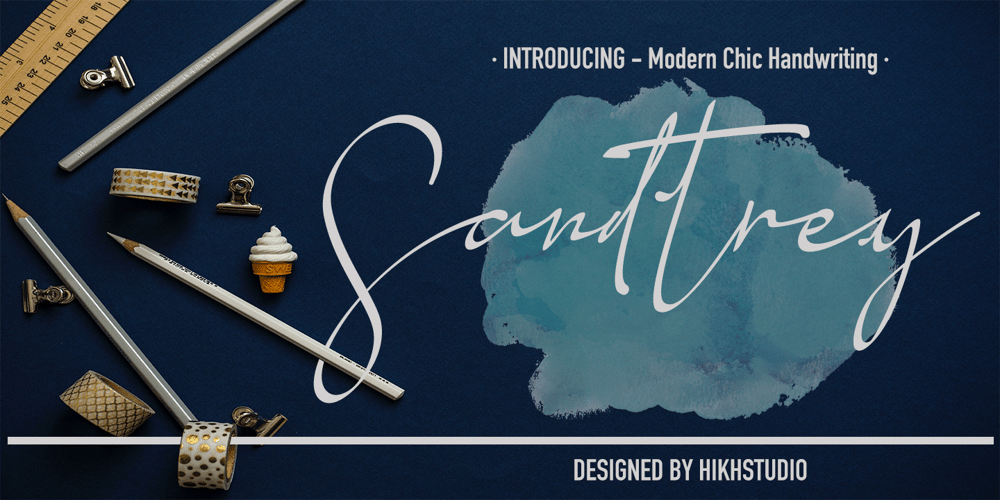
Sandtrey
Sandtrey font
Sandtrey Font Family was designed by Hajid Hikmatiyar and published by Hikhcreative. Sandtrey contains 1 styles and family package options. Sandtrey is a modern chic Calligraphy font with magical pressure. i hope this font perfect for creating signature logos and watermarks for photography studio or wedding invitation, best for initial or branding logo signature .I made-fully with love and unique!!Sandtrey includes full set of beautiful hand lettered uppercase and lowercase letters, numerals, a large range of punctuation and ligatures.You will get :In order to use the beautiful ligature, you need a program that supports OpenType features such as Adobe Illustrator CS, Adobe Photoshop CC, Adobe Indesign and Corel Draw.